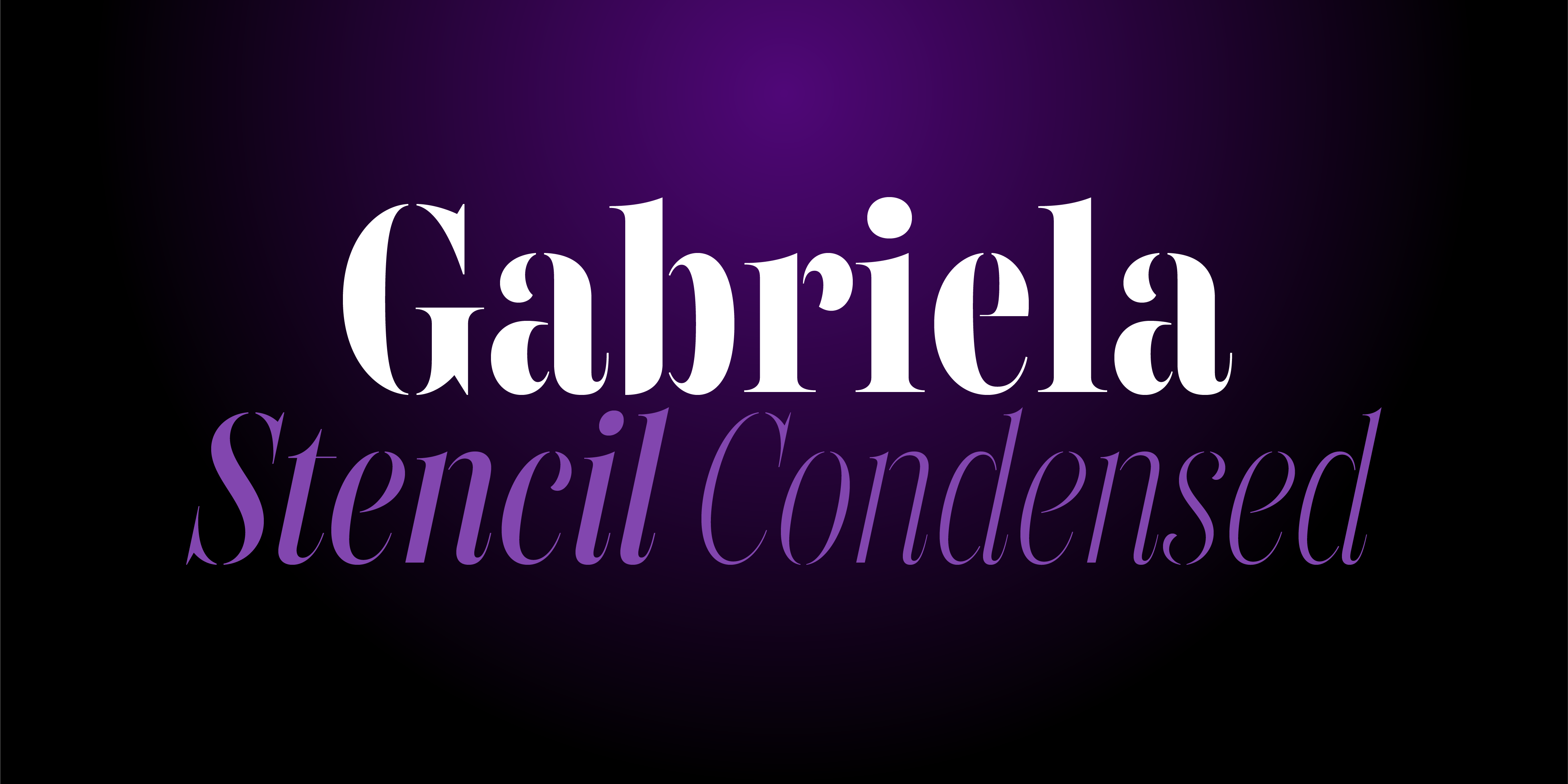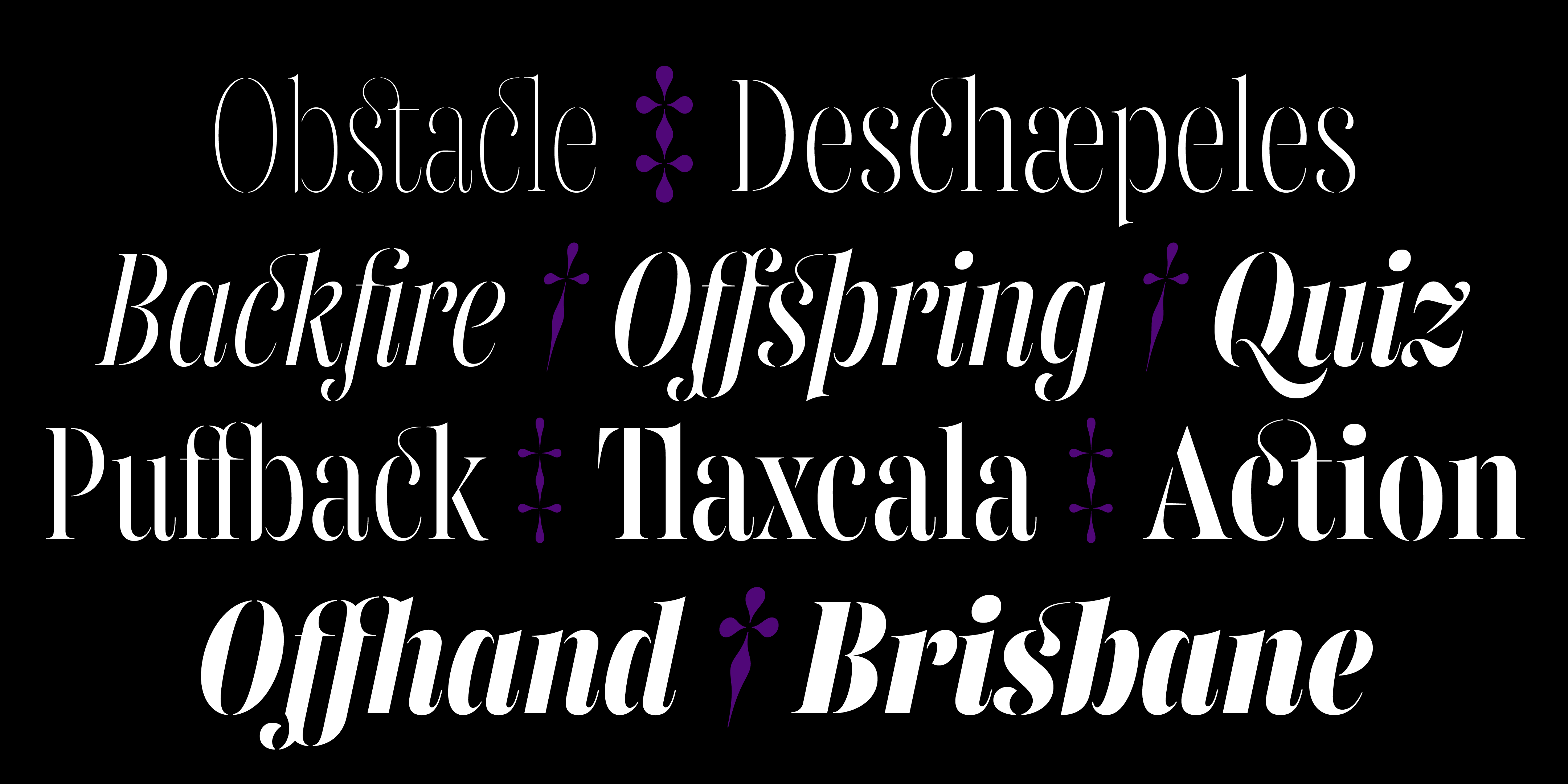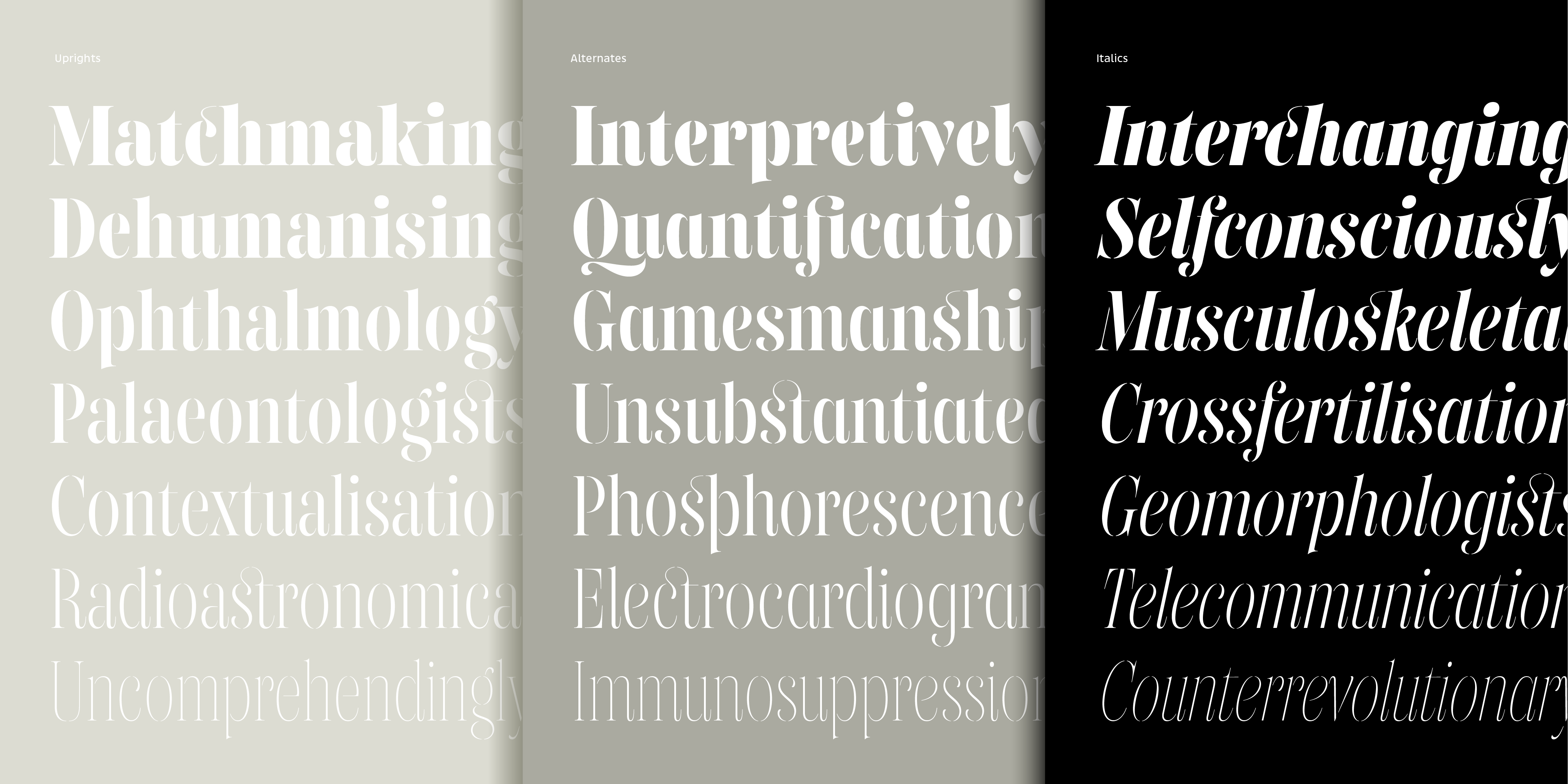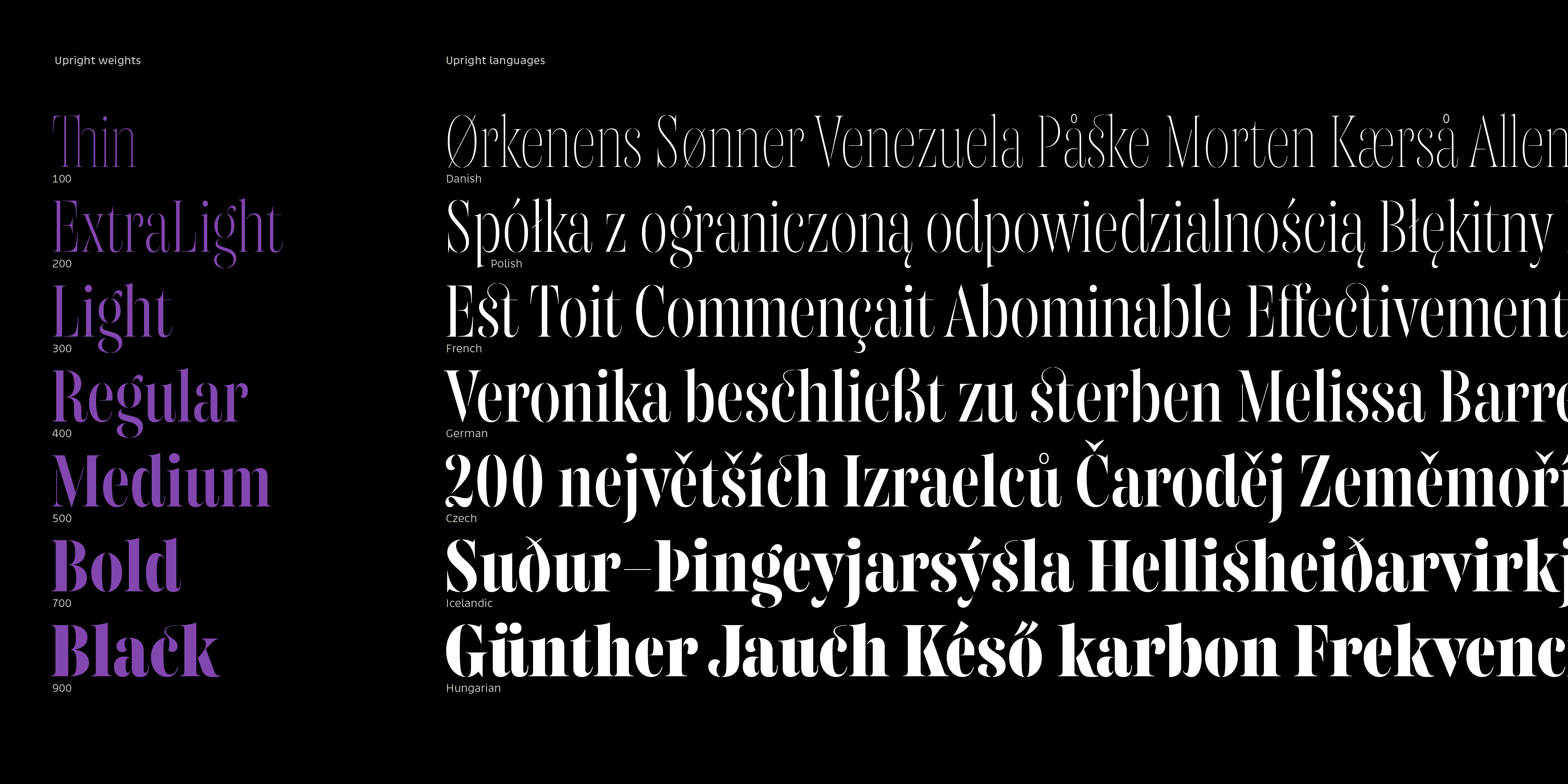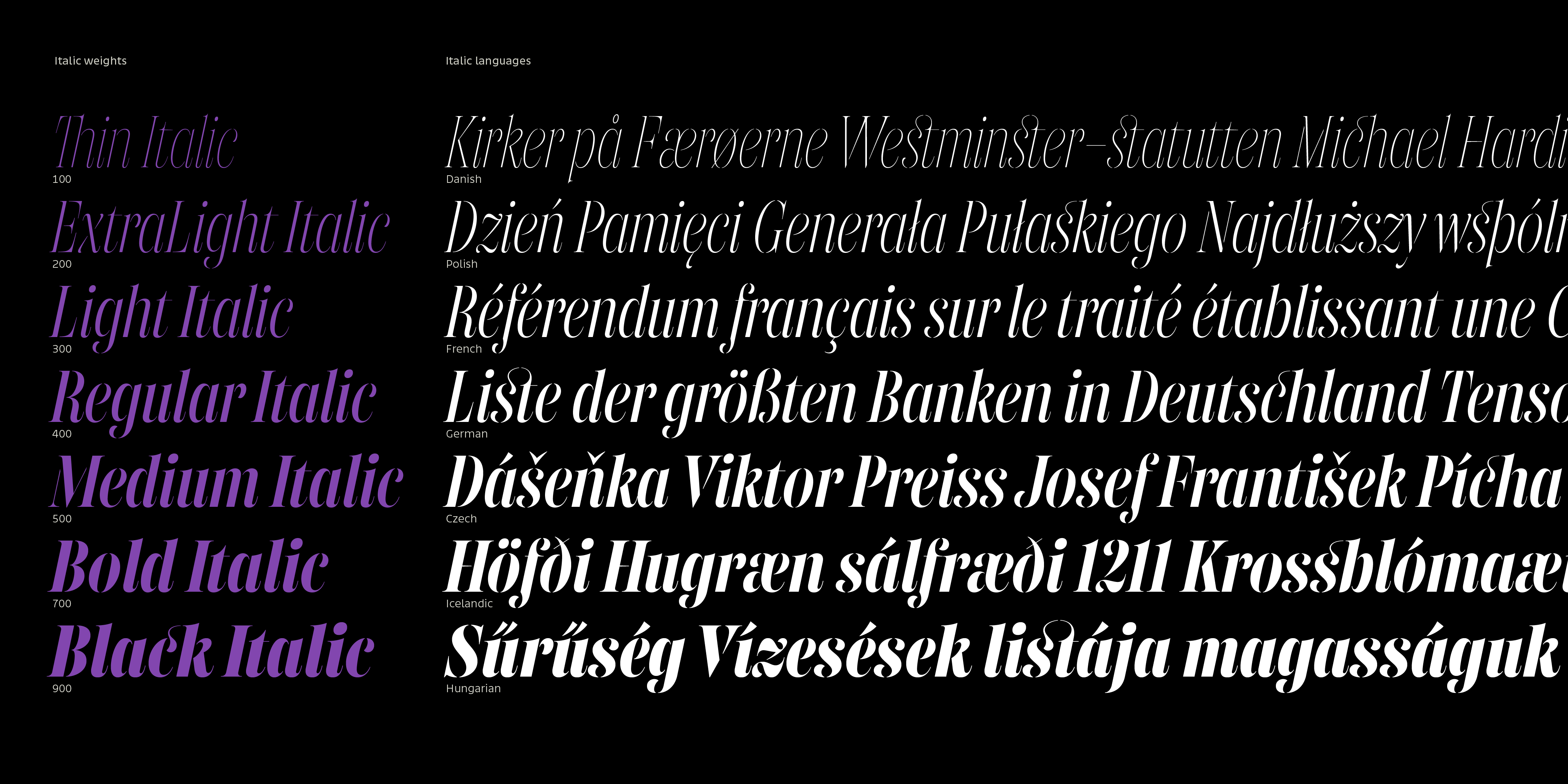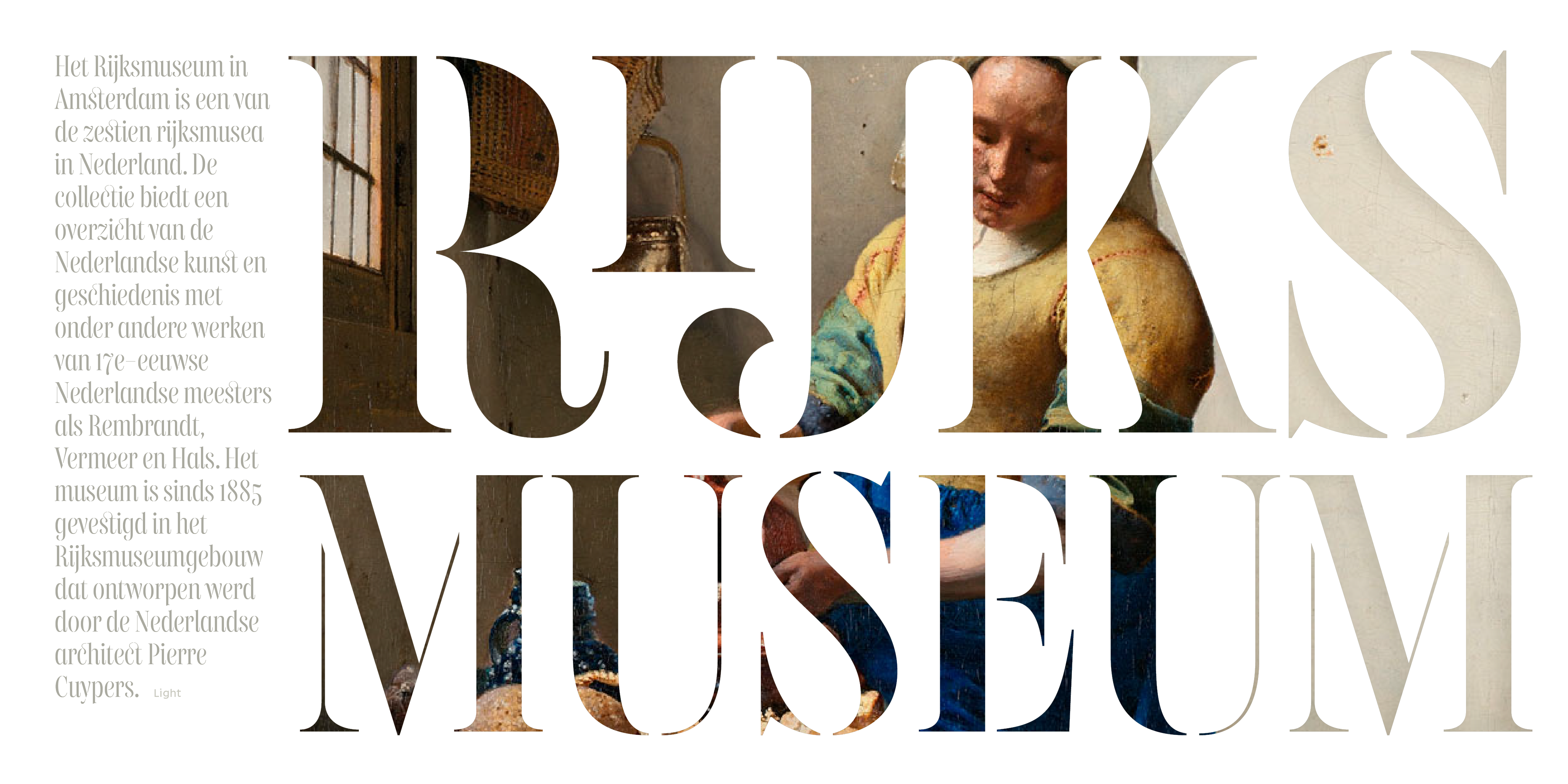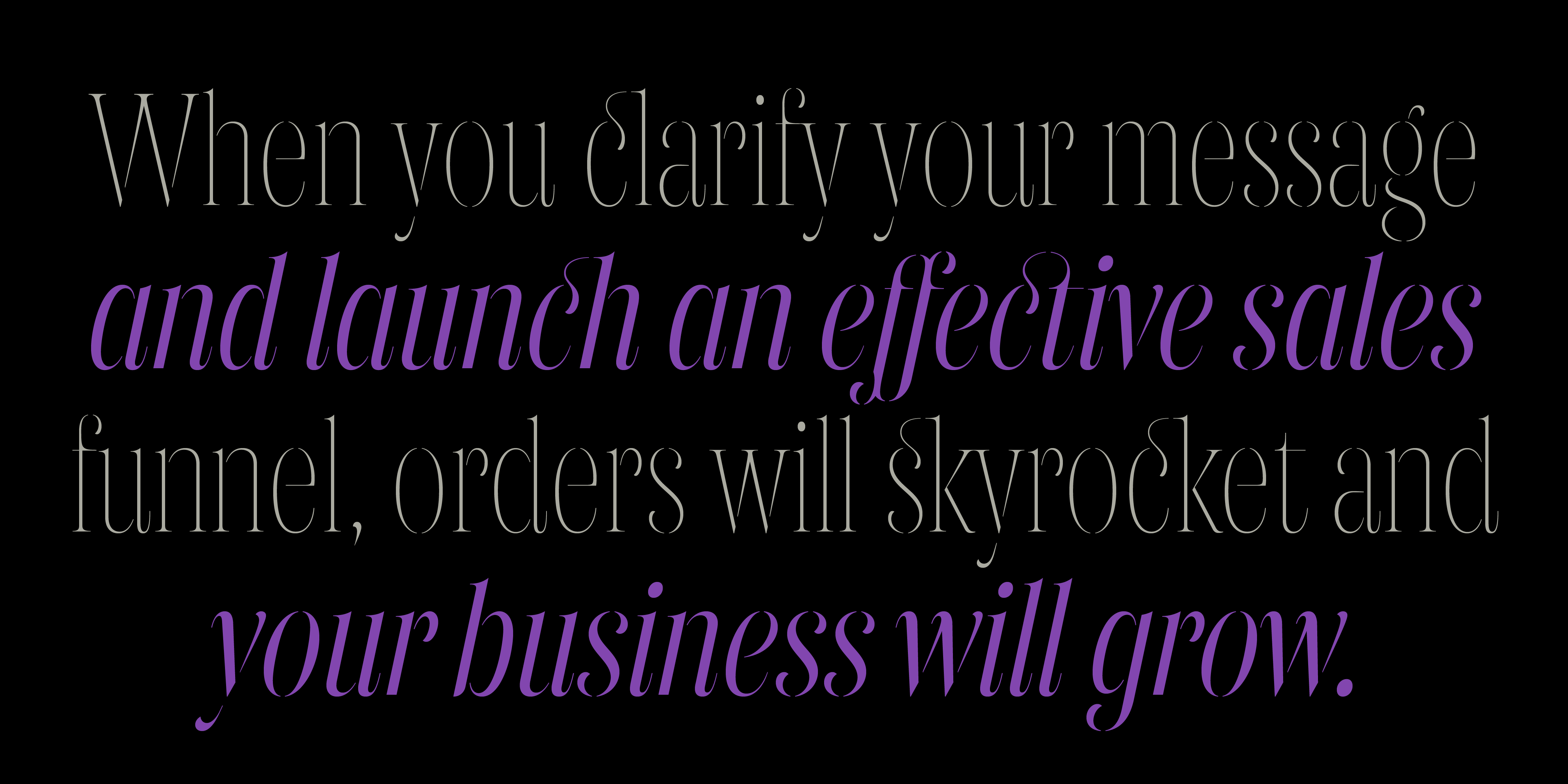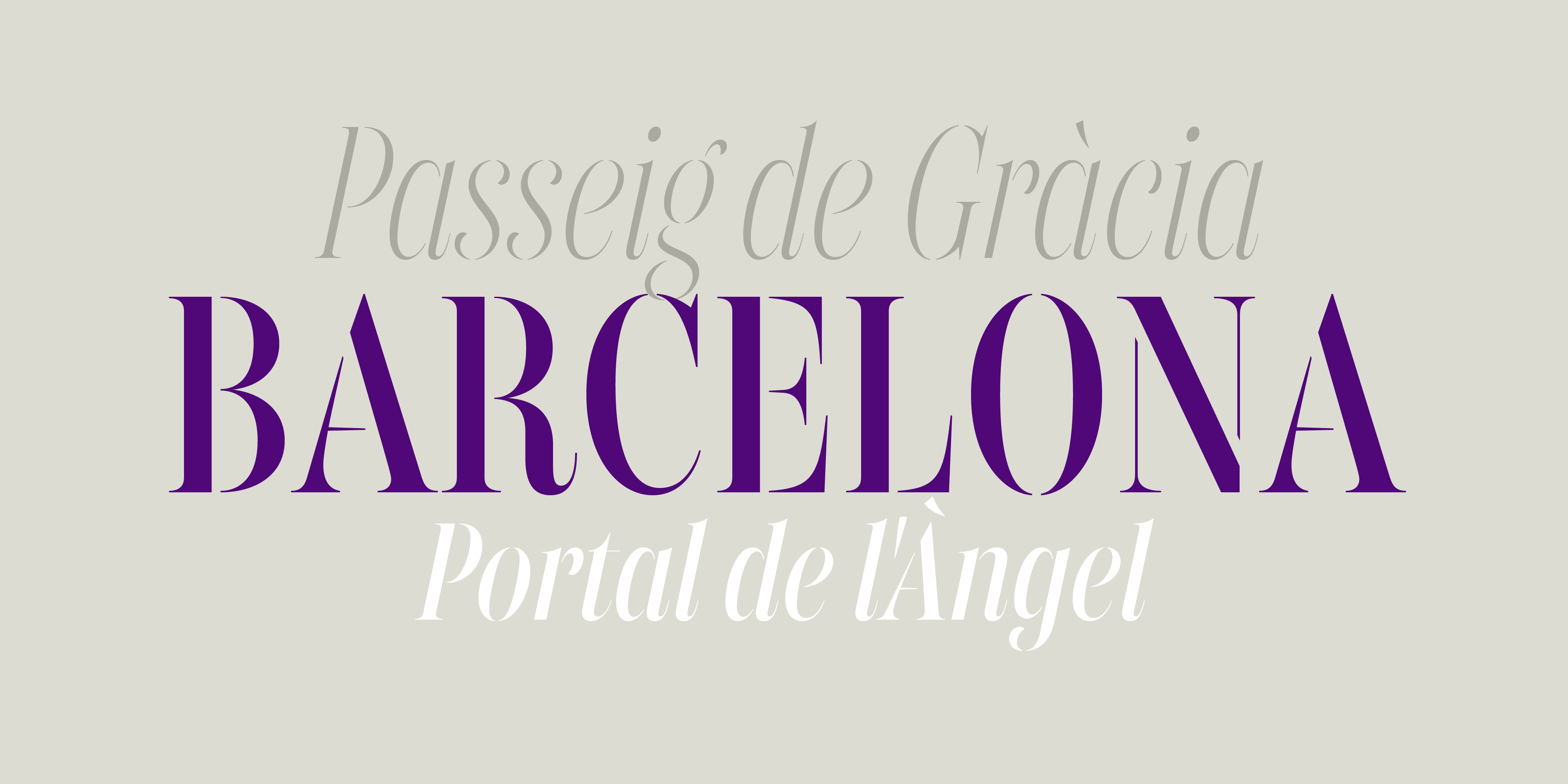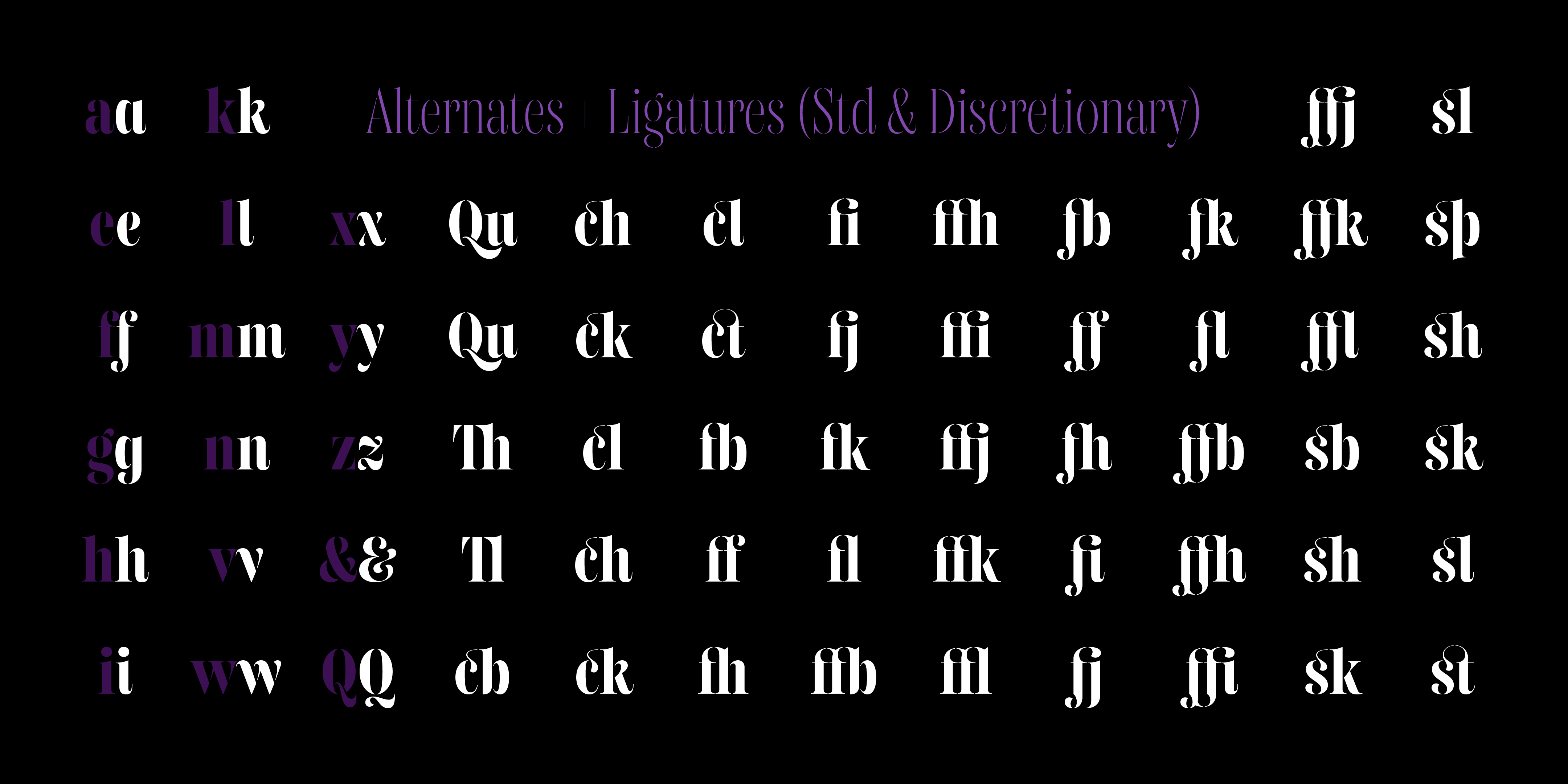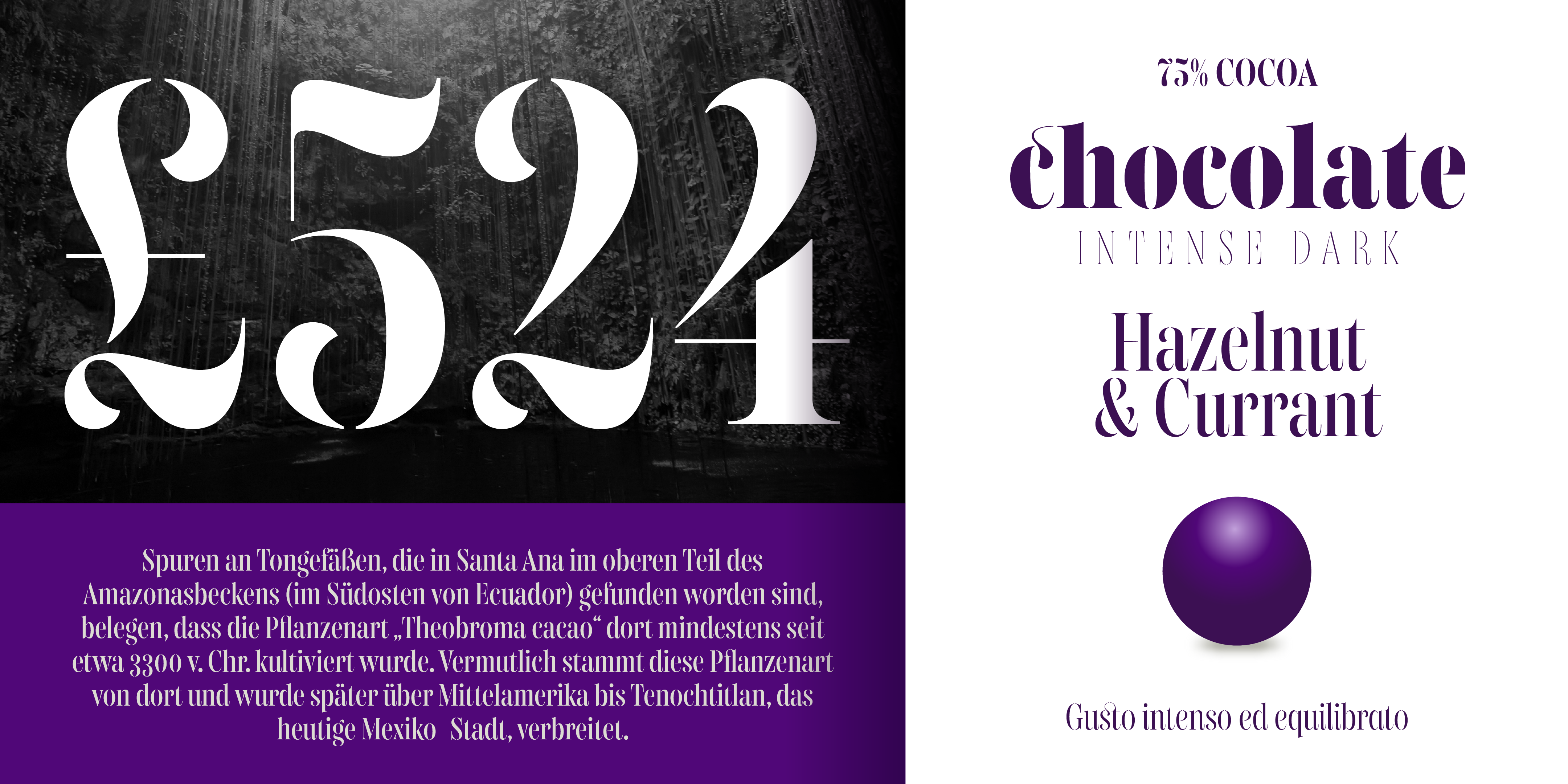
Gabriela Stencil Condensed
A condensed stencil typeface with an edgy, elegant couture feel.
Gabriela Stencil Condensed extends the exploration of Gabriela Stencil into a condensed display version, designed to exploit its capacity for large sizes.
A Condensed Didone-Inspired Stencil Typeface
The experience of designing Gabriela Stencil left me with a restlessness to continue exploring, and using the display to further develop and condense it was a good opportunity to exploit its capacity for large sizes. Inspired by the style of 19th century Didone typefaces, Gabriela Stencil Condensed brings the edgy, elegant couture feel of Gabriela Stencil into a more condensed display format.
It is ideal for headlines, short texts, branding, and publishing projects.
Designed by: Antonio Mejía Lechuga.
7 Weights + Matching Italic
Gabriela Stencil Condensed — 7 weights, matching italic, 530+ glyphs, 94 languages, alternates, and discretionary ligatures.
Gabriela Stencil Condensed comes in 7 weights, plus a matching italic, providing flexibility for expressive display typography and typographic hierarchy.
Alternates, Ligatures & 530+ Glyphs
Gabriela Stencil Condensed includes more than 530 glyphs, supporting 94 different languages.
The family also includes alternates and discretionary ligatures, providing additional possibilities for expressive typographic compositions.
Designed for Headlines, Branding & Publishing
Gabriela Stencil Condensed is designed for large sizes and is ideal for headlines, short texts, branding, advertising, editorial, packaging, and publishing projects.
Its condensed format allows the stencil character and Didone-inspired details to create a strong typographic presence in display applications.
Part of the Gabriela Type System
Gabriela Stencil Condensed is part of the Gabriela type system, alongside Gabriela and Gabriela Stencil.
The condensed version continues the exploration of the stencil design, extending its use for display typography and large sizes.